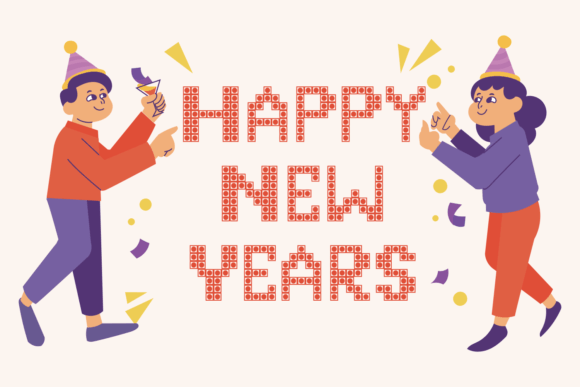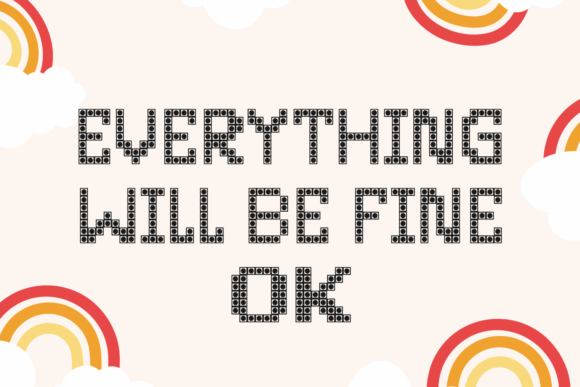
Introduction to Momon Alphabet Font Font
Fonts play a crucial role in design, and the Momon Alphabet Font font is a typeface that brings both character and versatility to any project. Whether you’re working on a branding project, a website, or a print design, the Momon Alphabet Font font offers a unique style that can elevate your work.
Introducing the multipurpose font that caters to your diverse requirements β whether itβs adding flair with Decorative Fonts, articulating clarity with Alphabet Fonts, creating a memorable identity with Branding Fonts, designing exclusive iterations with Custom Fonts, spreading joy with Easter Fonts, or embracing sophistication with Minimalist Fonts.
Dive into the aesthetic versatility this unique font offers Perfect for enhancing any visual content, its seamless blend of style and substance is designed to leave an endearing impression.
Key Features of Momon Alphabet Font Font
Why Choose Momon Alphabet Font Font?
The Momon Alphabet Font font is more than just a typeface β it’s a design tool that helps you communicate your message with style and clarity. Its unique character set and versatile design make it suitable for a wide range of applications, from elegant invitations to bold headlines.
With its carefully crafted letterforms and balanced proportions, the Momon Alphabet Font font ensures readability and visual appeal across all mediums.
What makes Momon Alphabet Font font special?
The Momon Alphabet Font font stands out with its unique design, exceptional readability, and versatility across various design applications.